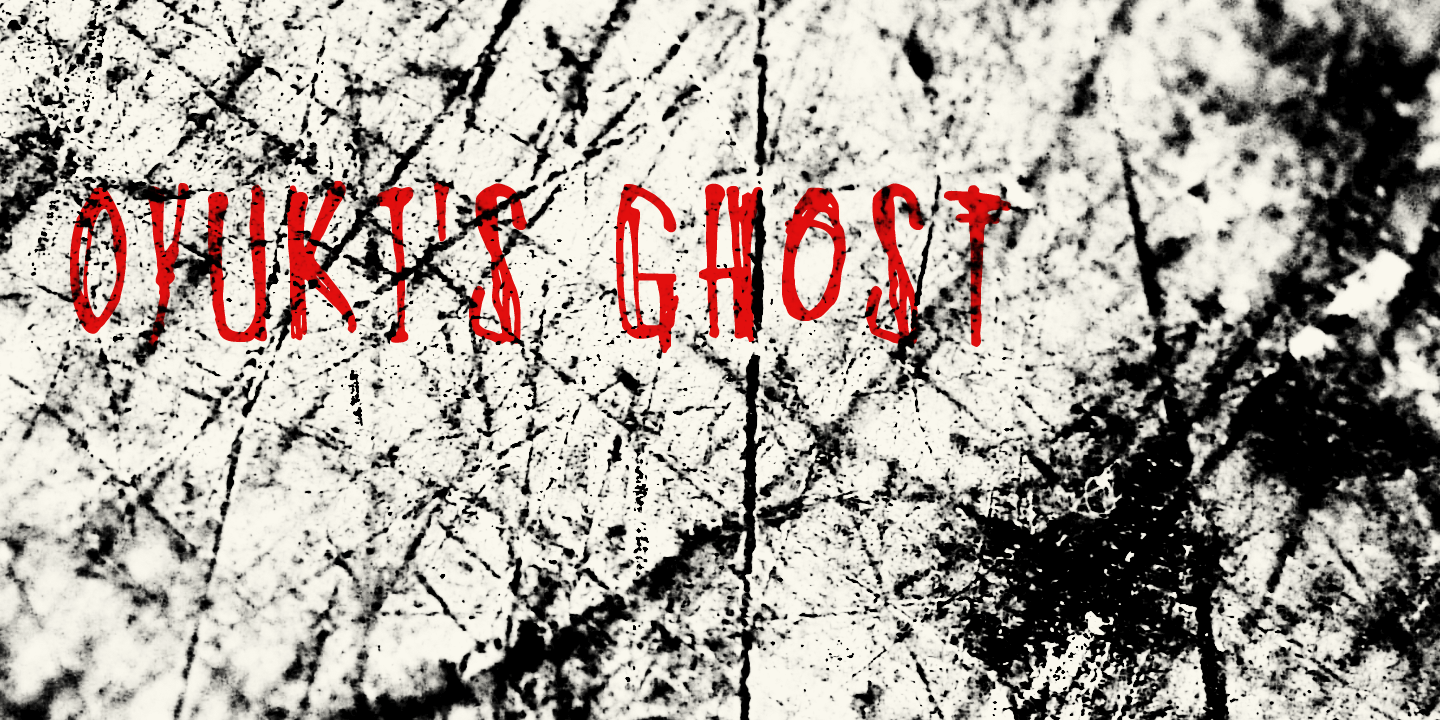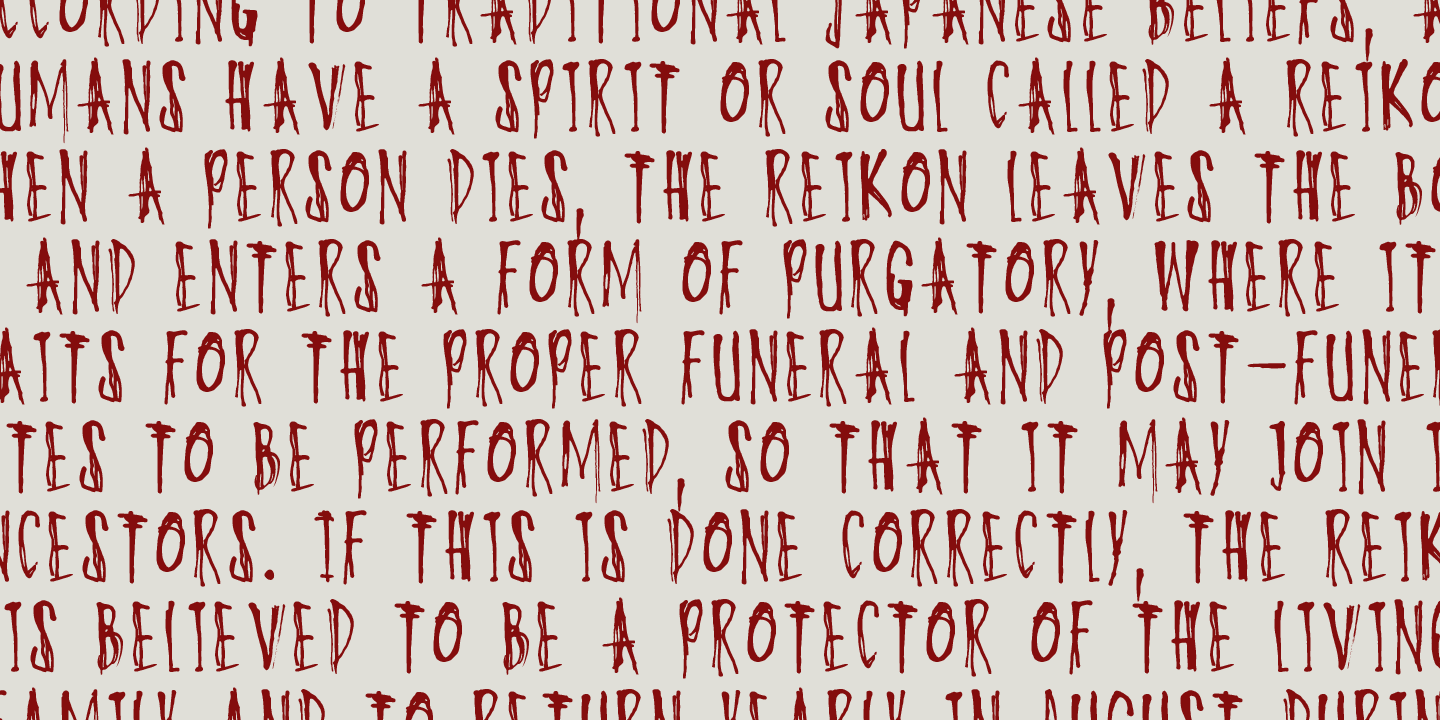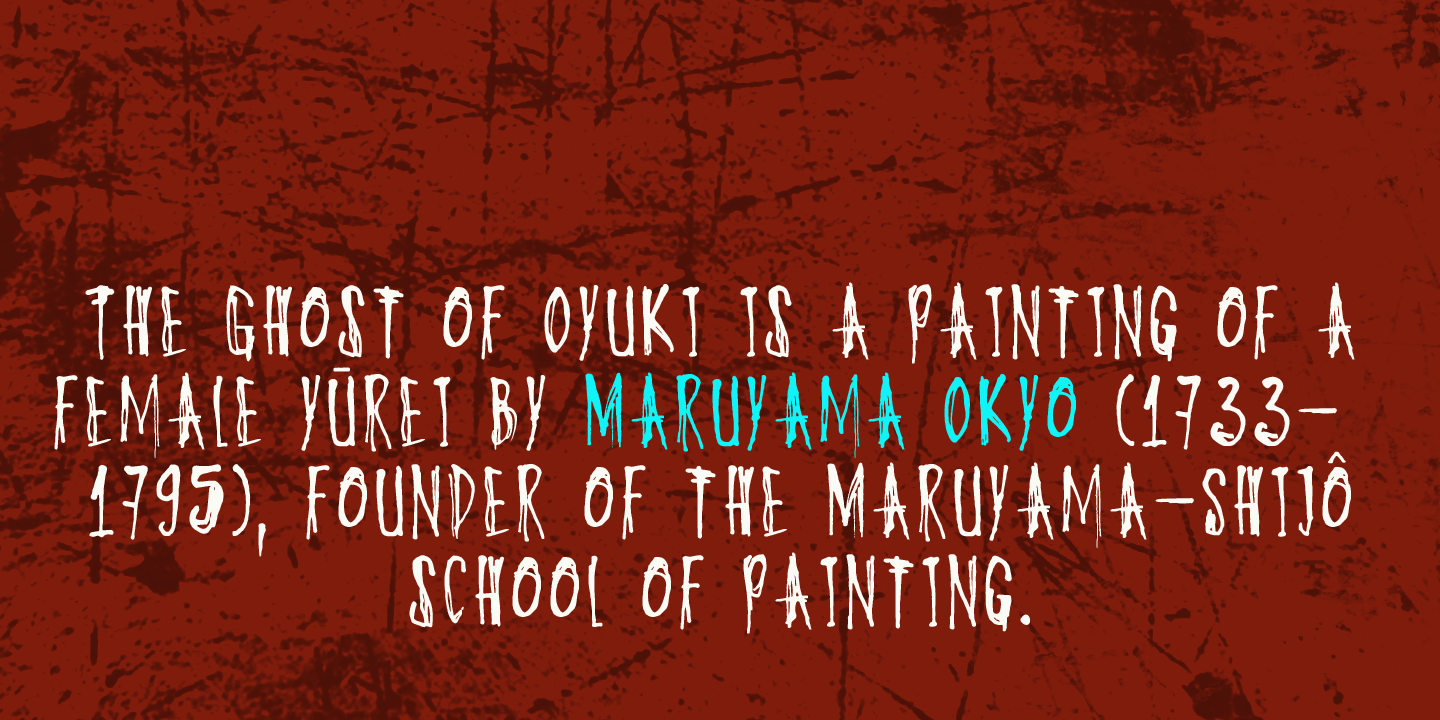
Oyuki's Ghost
Oyuki's Ghost is a scary typeface made with a steel pen and Chinese Ink. The name comes from a painting by Maruyama Okyo (1733?1795), which depicts his mistress who died young. Maruyama Okyo claimed she haunted him in his sleep.
The font comes with extensive language support.